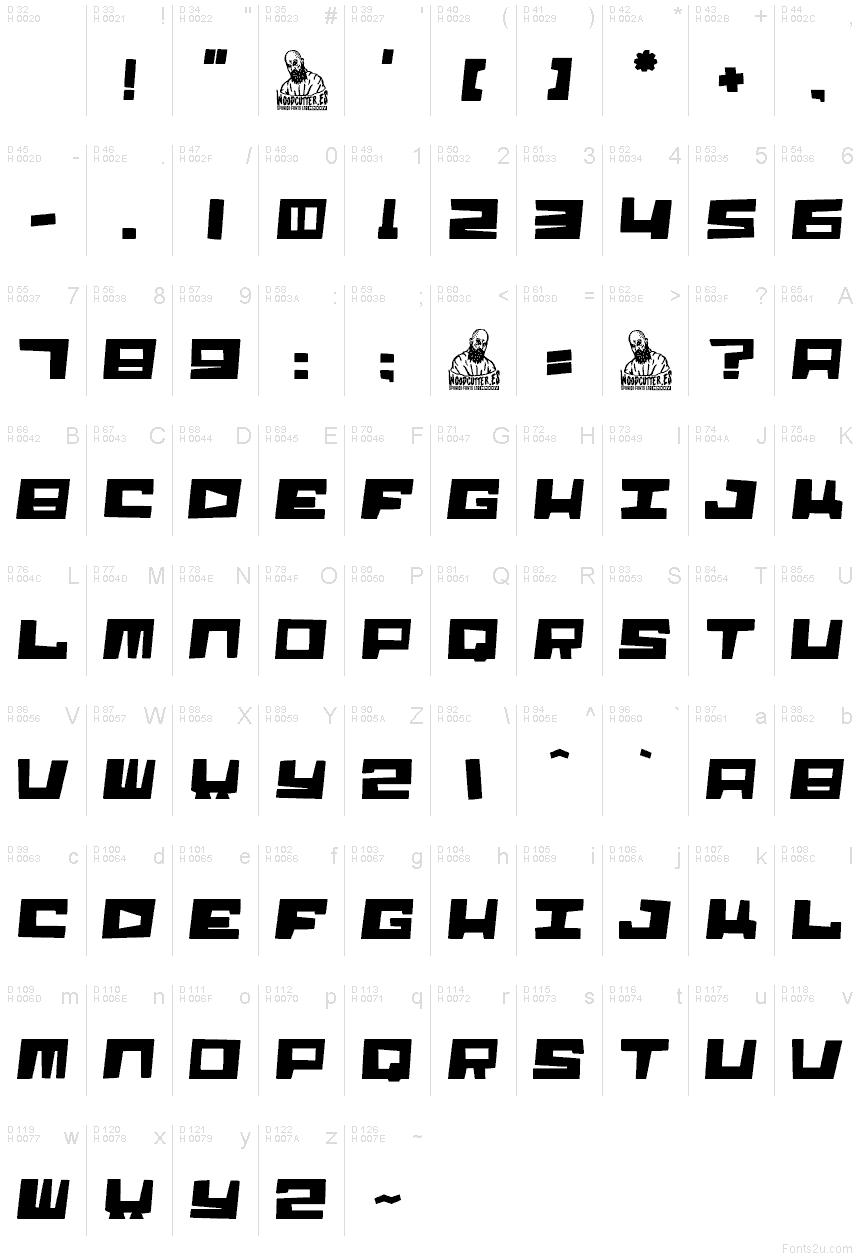
Asteroid 3000
Asteroid 3000 font by Woodcutter is a free futuristic display font. Built from chunky, modular blocks with razor-cut diagonals and tight, almost monospaced rhythm, it hits that retro‑sci‑fi sweet spot without feeling gimmicky. The squared counters and clipped corners read like spacecraft panels—high contrast, fast, and unmistakably mechanical—so your titles snap with meter and intent.
This free font shines on sci‑fi movie titles, game logos, tech event posters, esports banners, synthwave album covers, and YouTube thumbnails. Its compact spacing keeps lines dense and powerful; add a touch of tracking at large sizes for extra breath. Using Asteroid 3000 with a light geometric sans for body copy creates a crisp control‑panel vibe that’s easy to navigate.